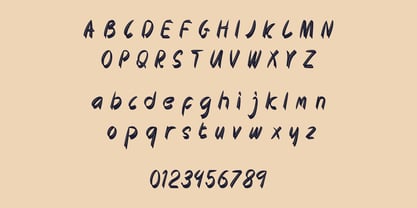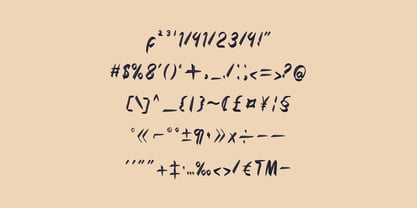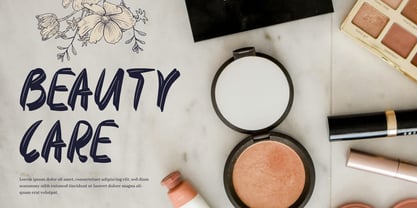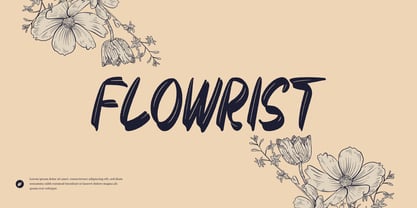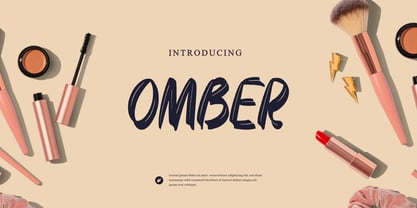
Omber
by WAP Type
The Omber Font Family was designed by Wahyu Aji Prasetyo and published by WAP Type. Omber contains 1 styles. More about this family
Omber fonts are versatile typefaces that mimic the texture and fluidity of hand-painted strokes, often created with a brush pen or paintbrush. They are ideal for adding a, artistic, and dynamic touch to designs. Commonly used in logos, posters, social media graphics, product packaging, and invitations, brush fonts convey creativity, energy, and authenticity. Their organic, imperfect edges make them perfect for projects that need a bold yet human feel, whether for modern branding or expressive, casual designs.
Designers: Wahyu Aji Prasetyo
Foundry: WAP Type
WAP Studio Fonts commenced operations in 2013, initially specializing in logo design. Subsequently, we ventured into the realm of font design. Our approach involved gradually mastering the creation of one font at a time. Our objective is to craft fonts that are both distinctive and of high quality, suitable for diverse applications and purposes. We remain committed to continuously striving for excellence in our work.